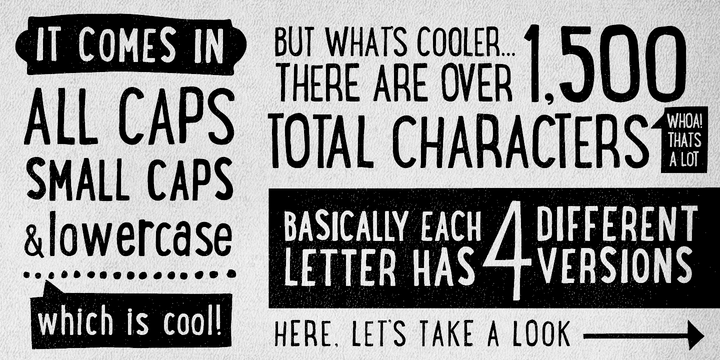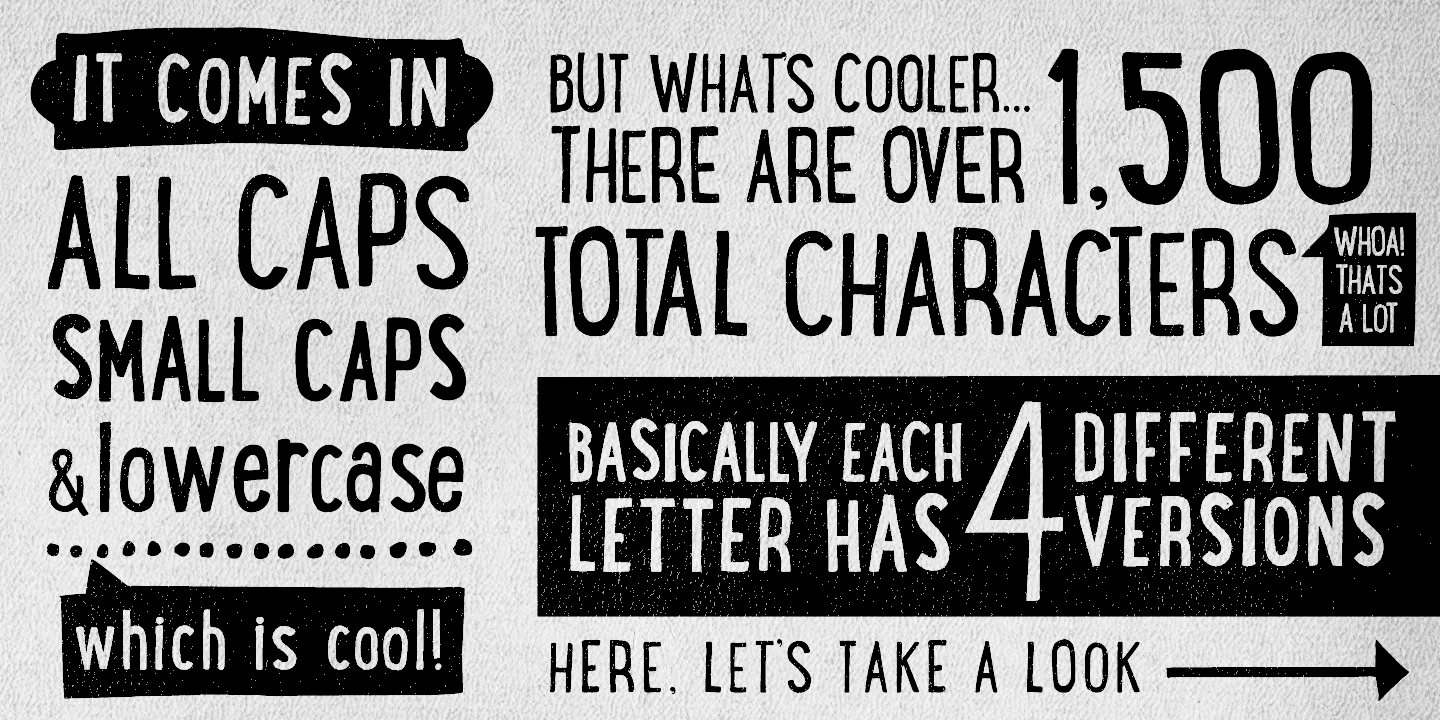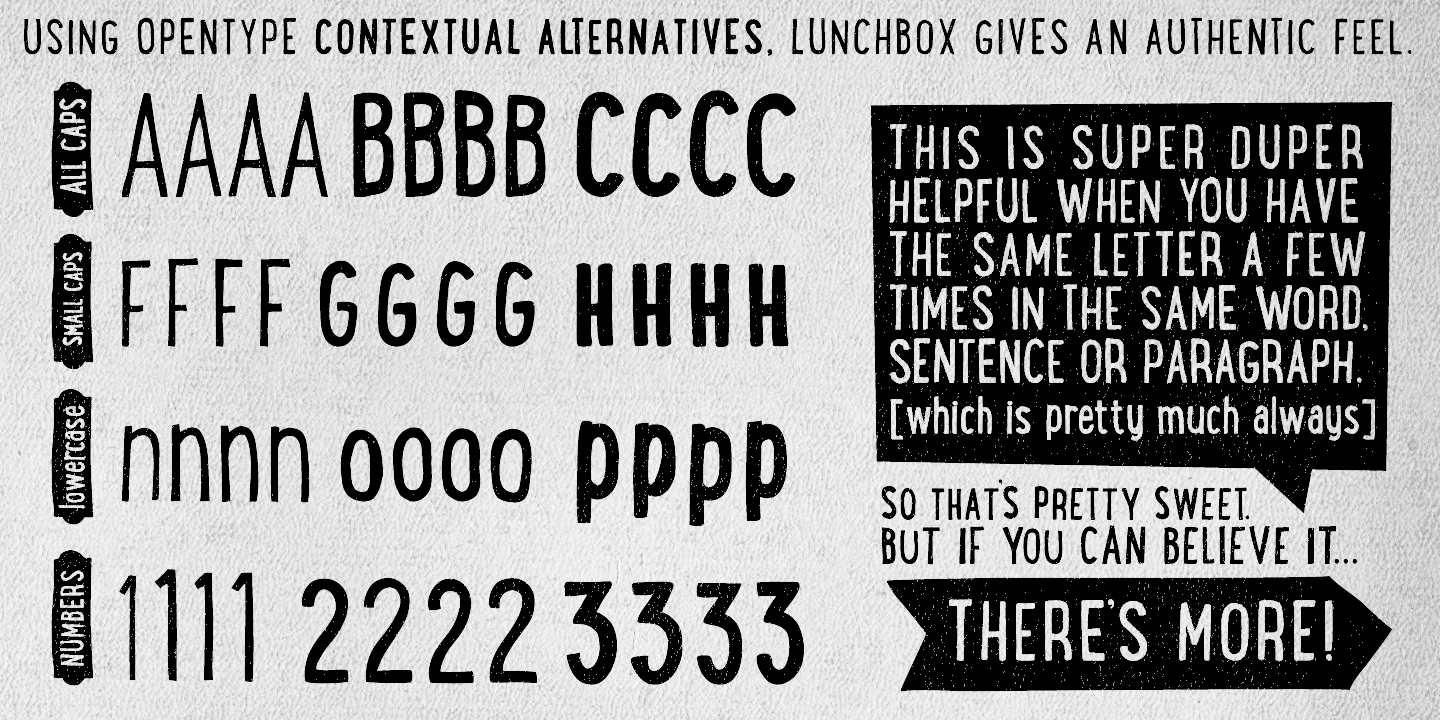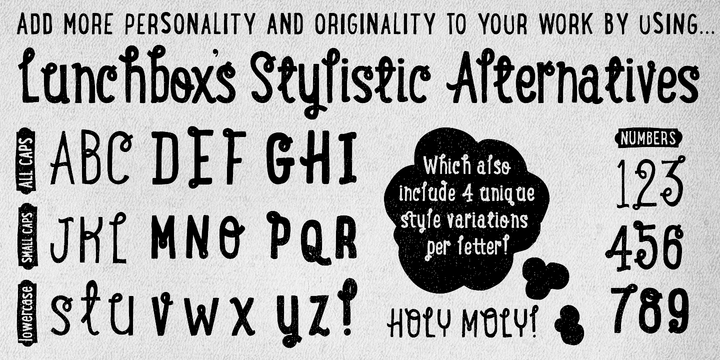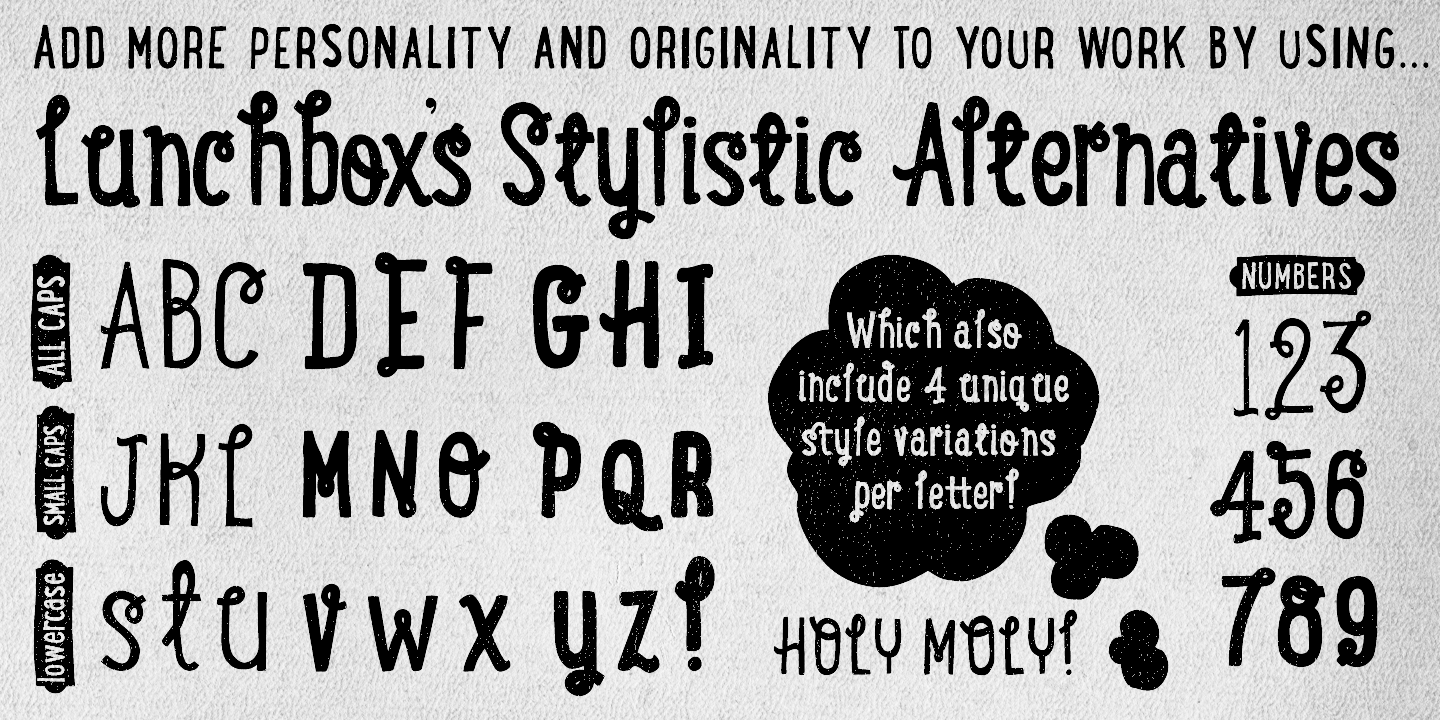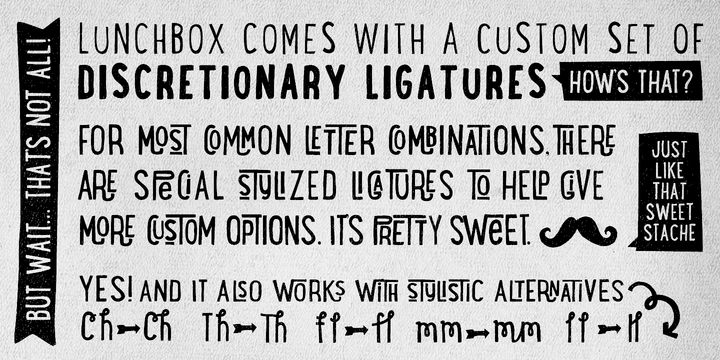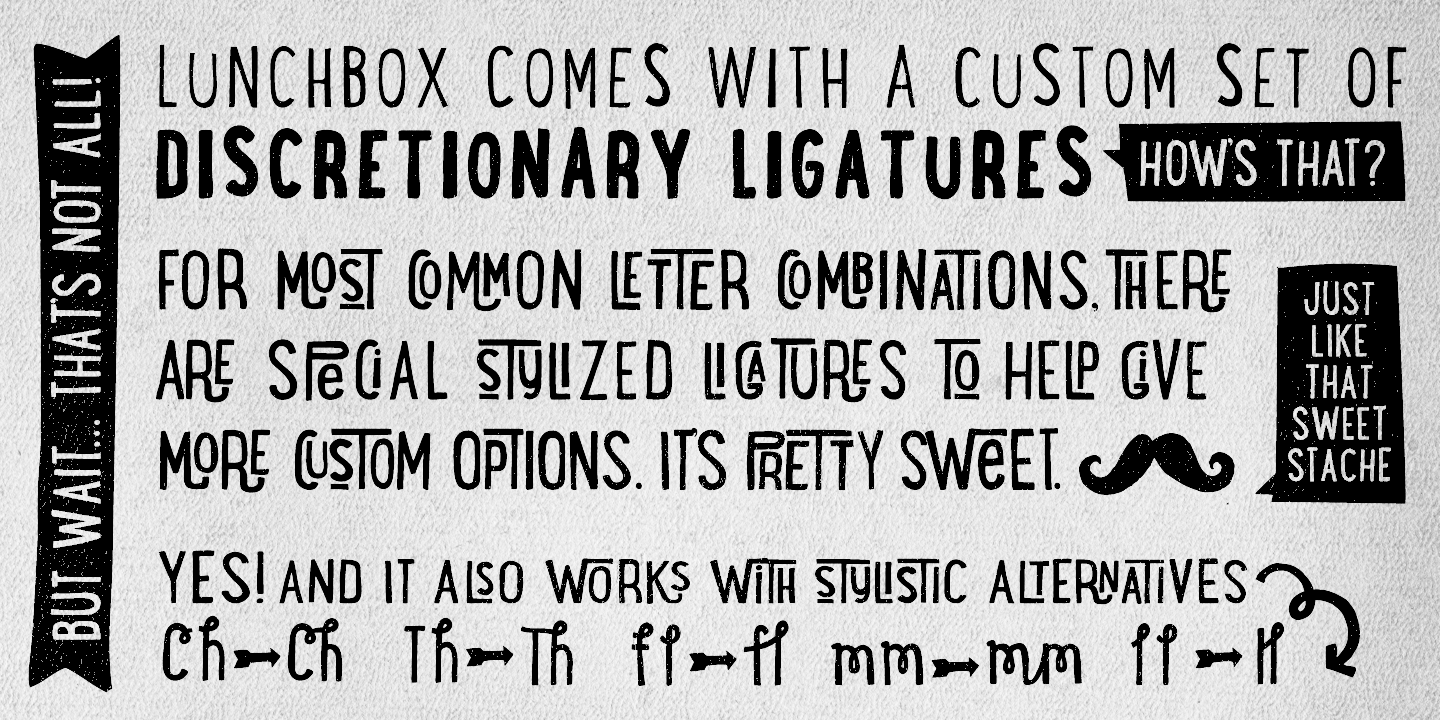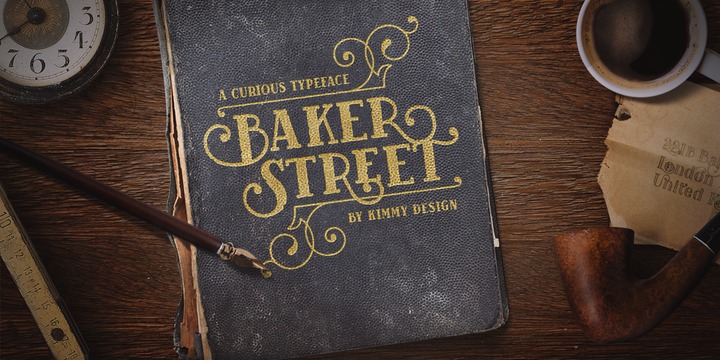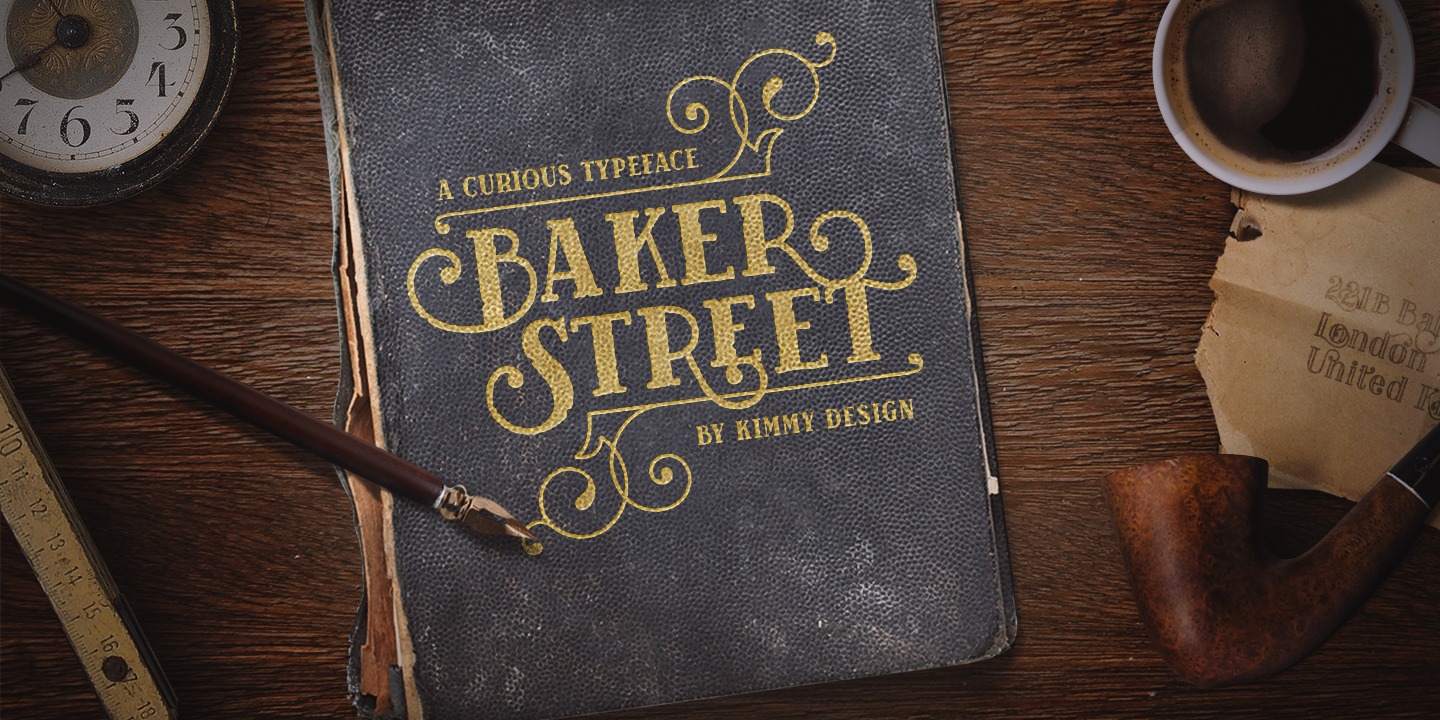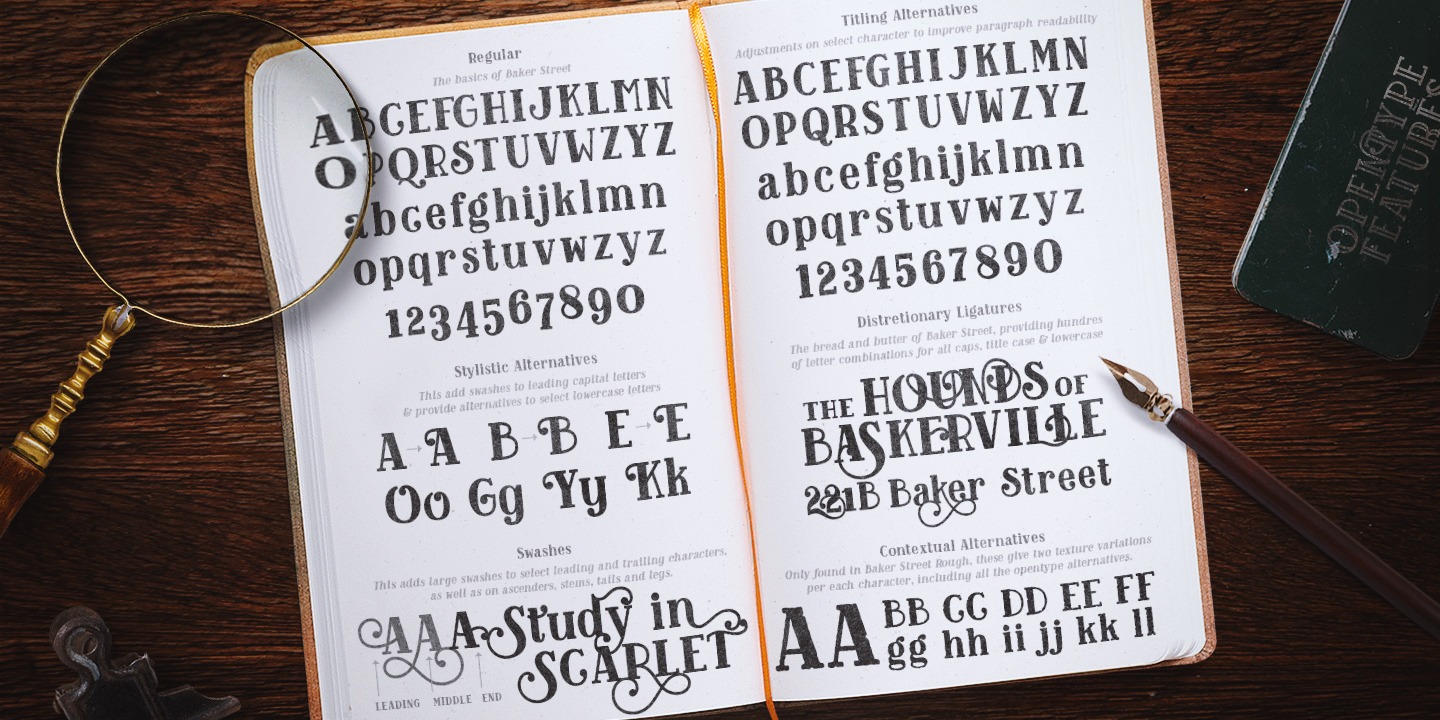
“Kimmy Design is based out of Santa Monica, CA, but it’s as mobile as I am,” Kimmy Kirkwood says. “I love finding new inspiration and I work from Seattle, Palm Springs, Santa Monica, or wherever the next adventure takes me!”
Kimmy founded her company in 2010; the same year that she graduate from college. Her first typeface, Madeleine, which is based on a logotype that she had created for a hotel in Positano, Italy, was actually a part of one of her final collegiate projects. She used it as an opportunity to teach herself about the intricacies of type design and develop the programming skills needed to create a true working font. Since then, her most successful designs have included Lunchbox and Lunchbox Slab: quirky hand-drawn typefaces that give an incredible array of customizable options and an authentically hand-crafted look. “My goal with these,” she says, “was to make them unique enough that the end product from any designer would look as if it was all made by hand.”
“I love organic typefaces. Creating something that looks naturally handcrafted and letting the customers make it their own. In every hand drawn family I make I include multiple weights, styles and variations.” Kimmy uses contextual alternates in her typefaces and typically creates 3-5 variations of each letter, giving her fonts a truly hand-lettered feel. “I also usually include stylistic alternatives, which range from creating simple variations on specific letters to a unique style alternative for every character. Small Caps are a great way to give more options to designers while keeping the width and size of the font consistent. All of my font families are multilingual, and many include full Cyrillic and Greek alphabets. Whenever possible, I always include some sort of swash - either in fancy capitals, at the beginning and end of characters, or stylistic swashes.”
All of these customizable options give the young designer’s families an intimate, personal feel. “Two different people could use my font and create something totally unique from one another. That’s what makes them so fun to use!”